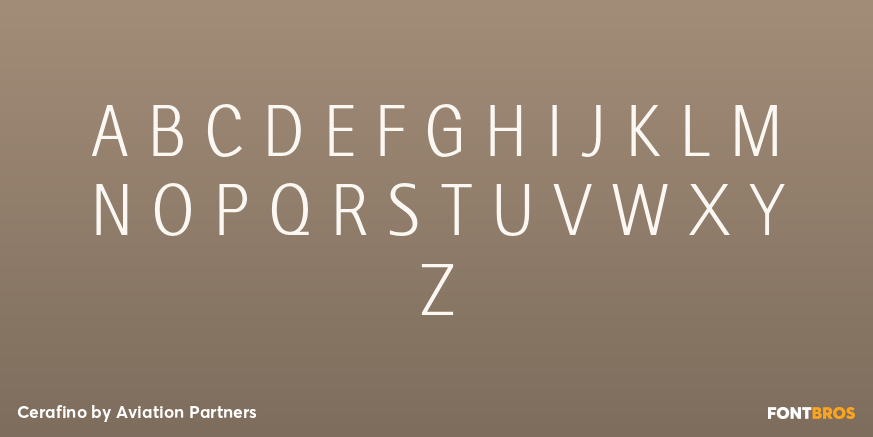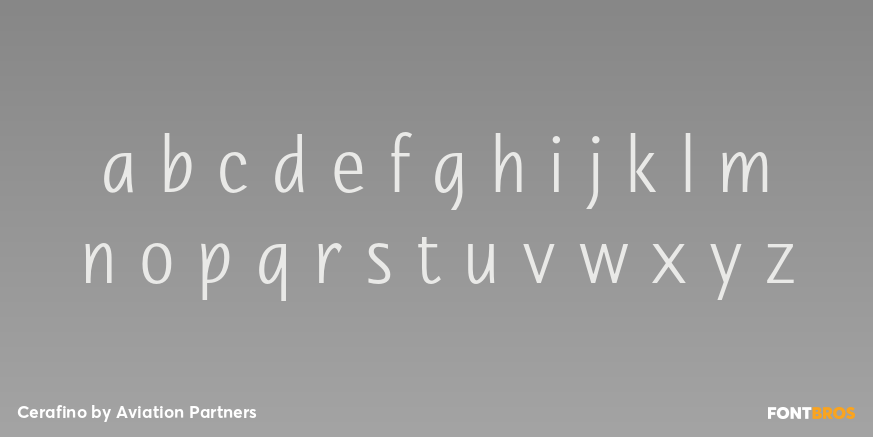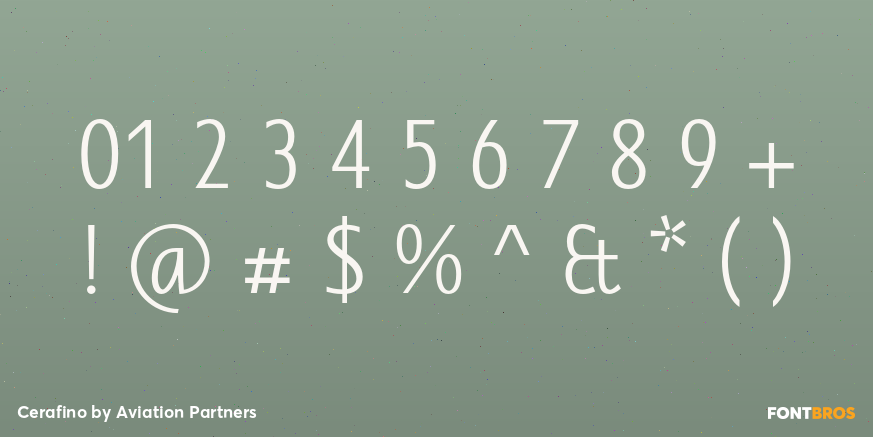
Cerafino
Font Family by Aviation Partners
Cerafino creates a sense of movement using open, angular strokes on lowercase characters. The capitals and numerals are less exaggerated.